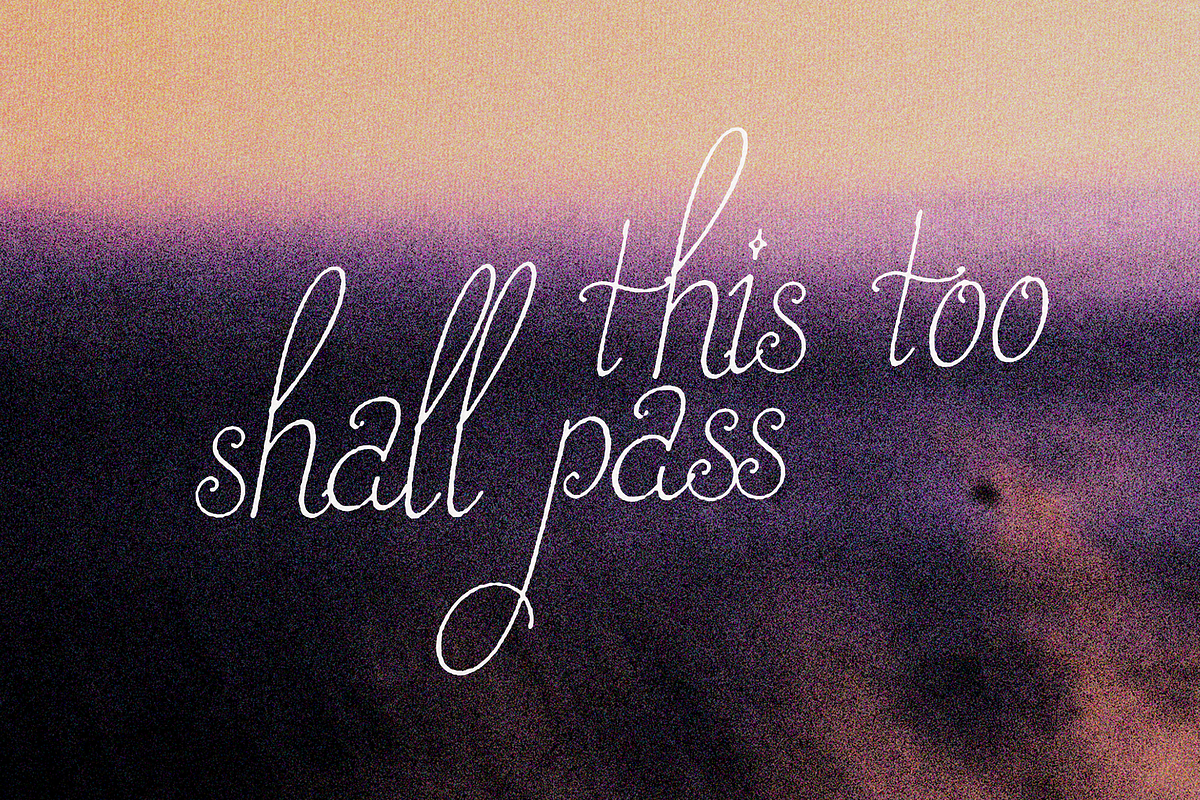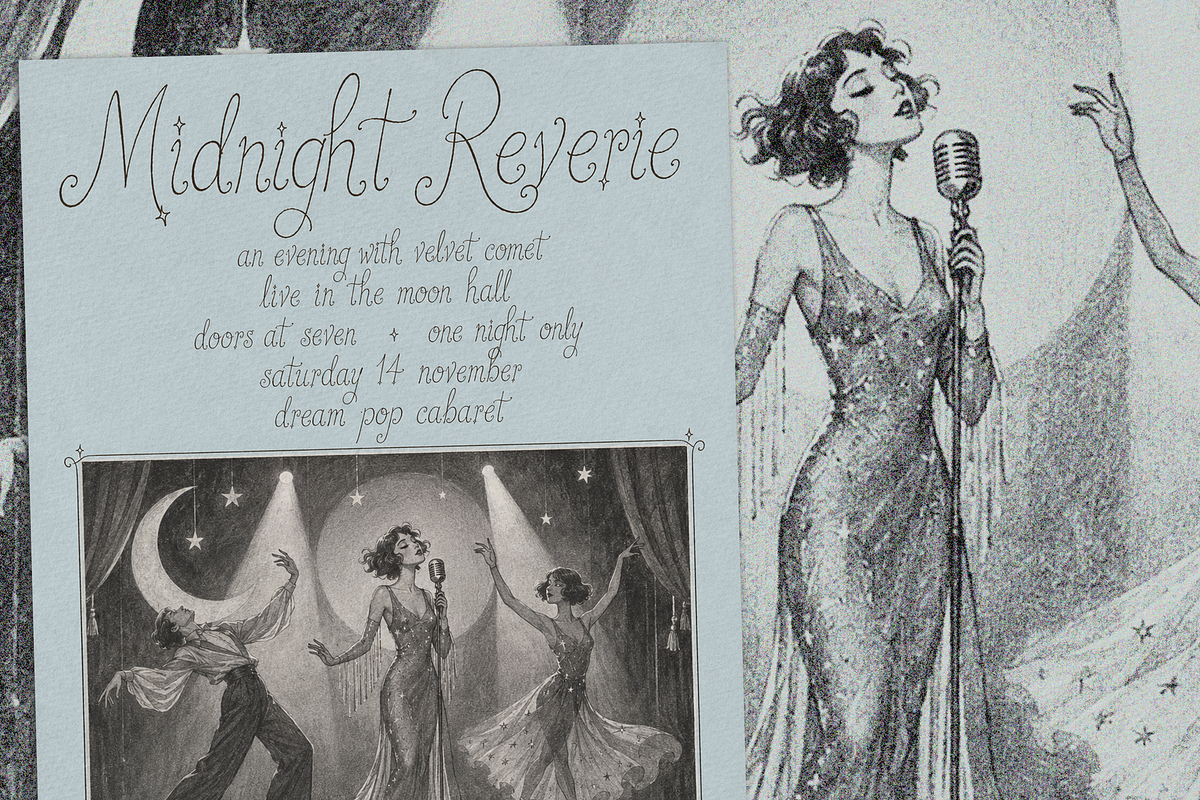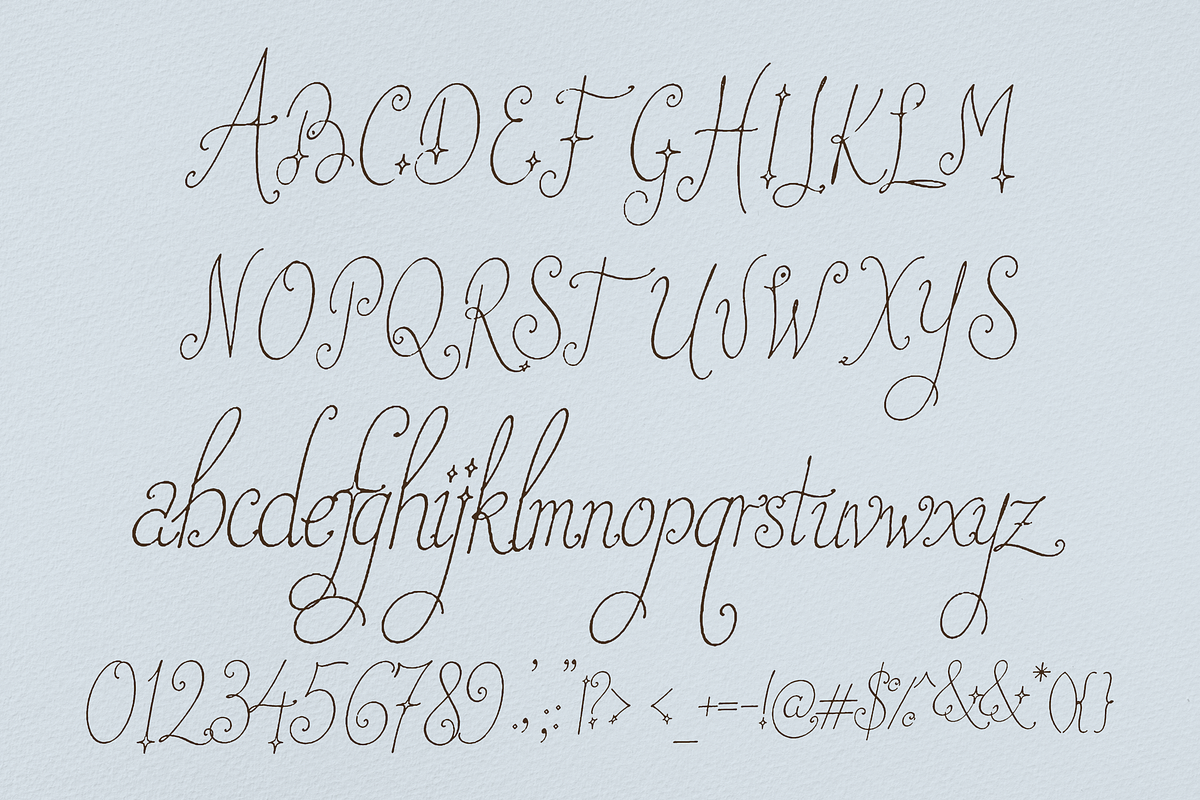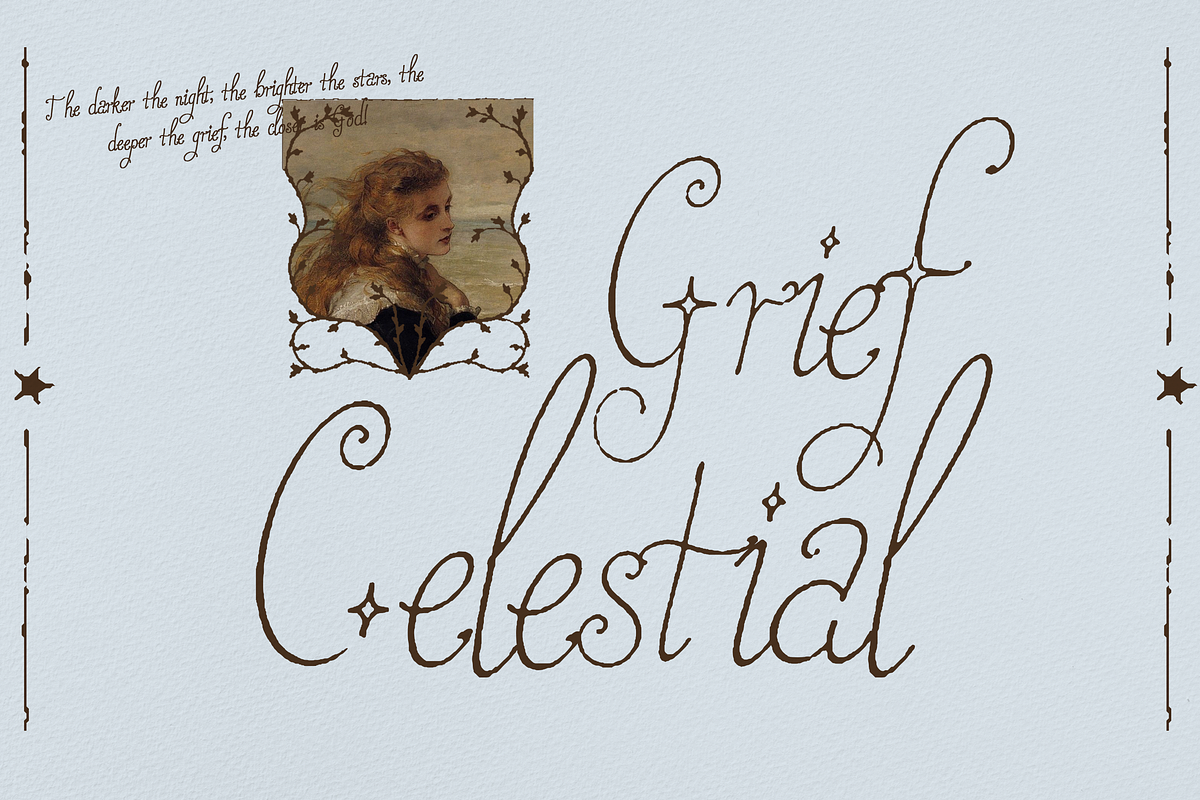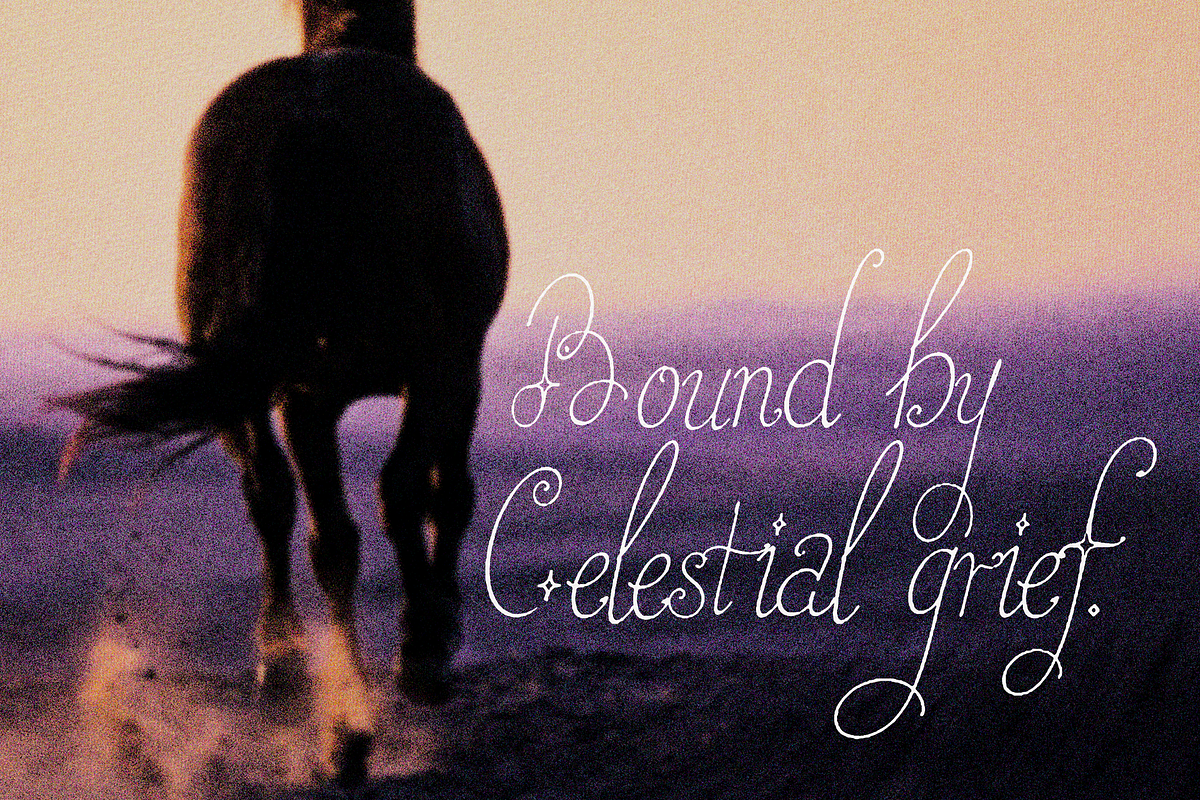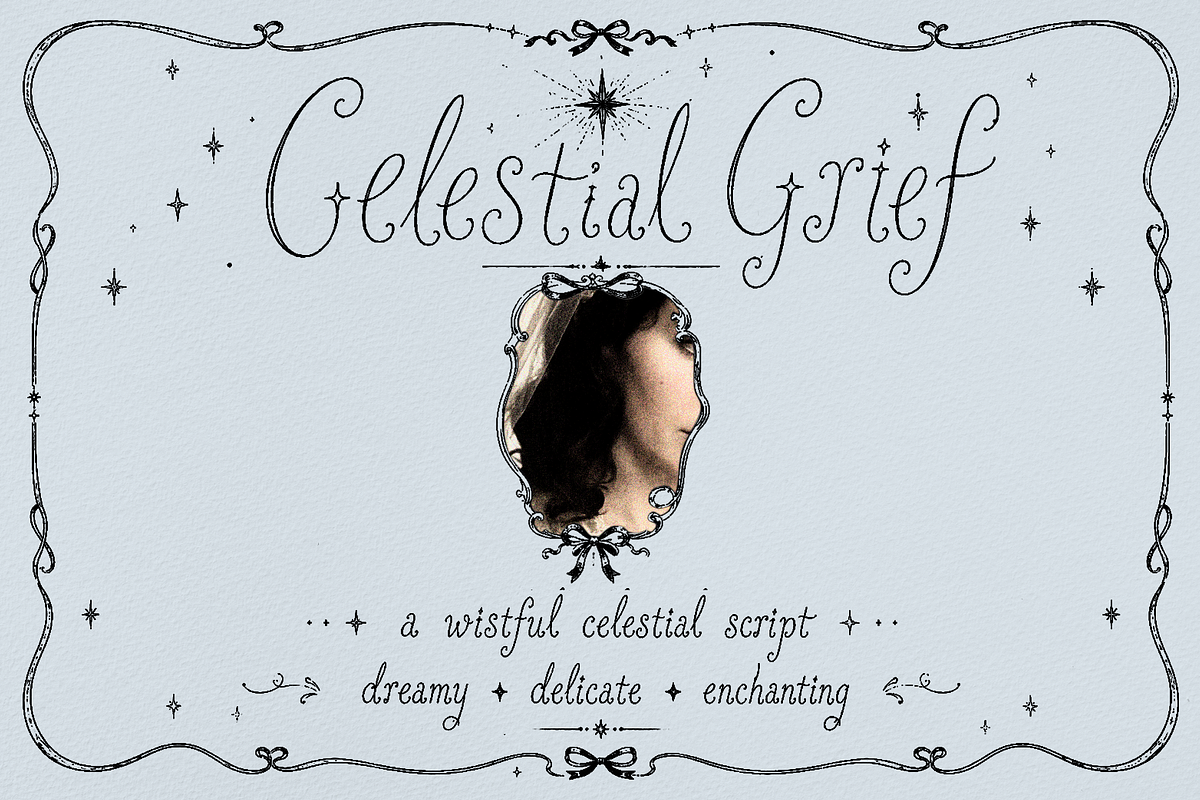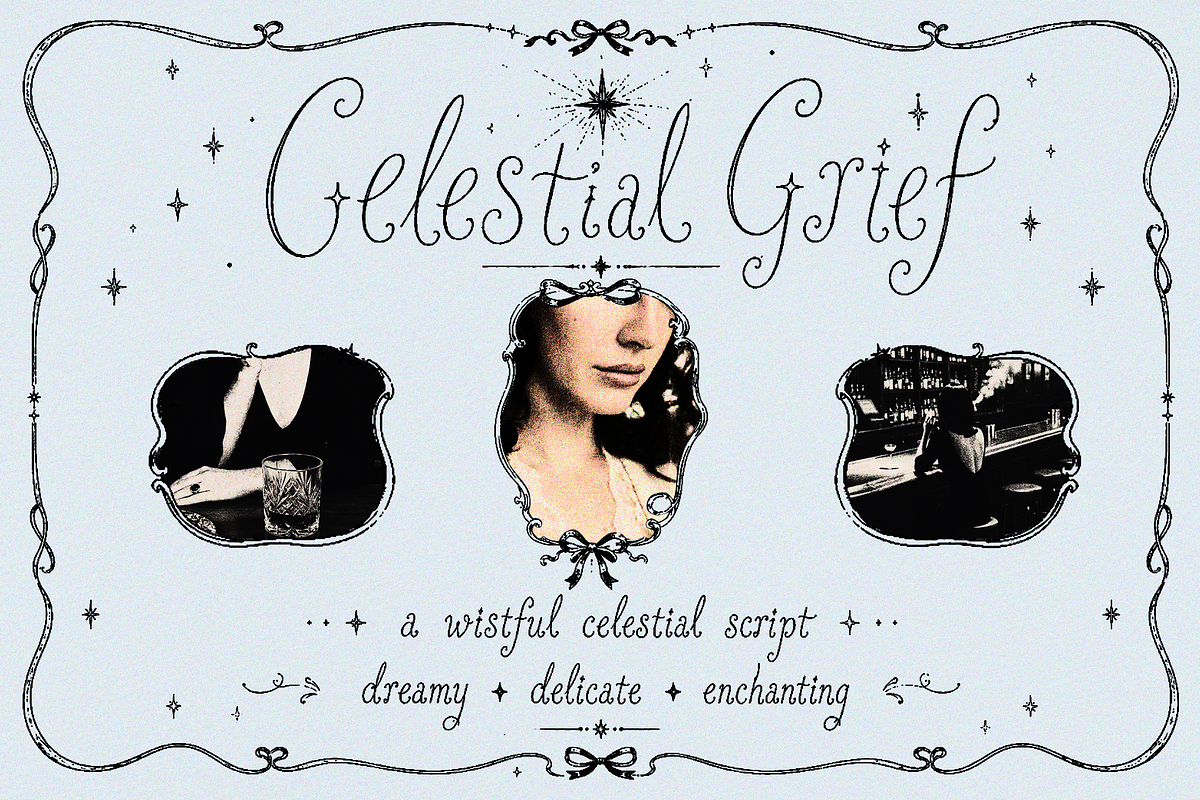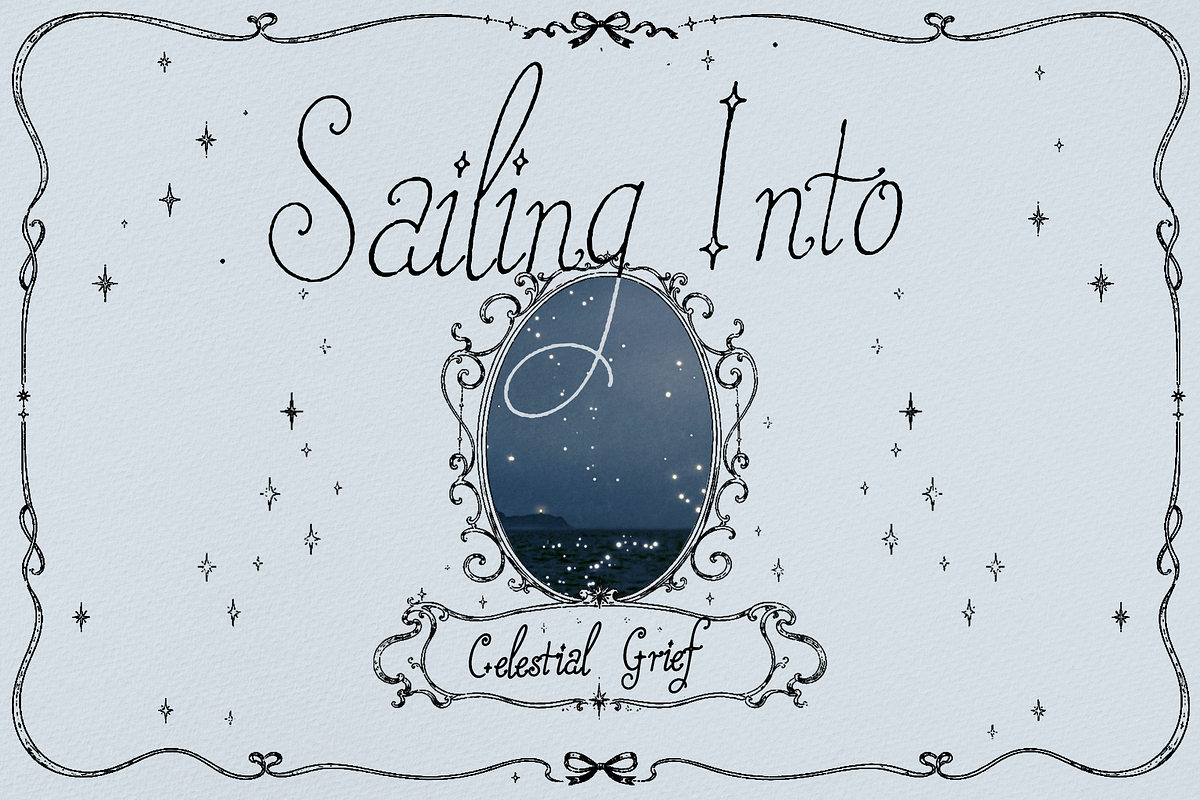
Celestial Grief
Celestial Grief delicate handwritten script font filled with dreamy curves, elegant flourishes, and tiny celestial details. Its tall, slender letterforms create a wistful and enchanting look with a touch of vintage romance.
Perfect for book covers, invitations, poetry, branding, posters, packaging, social media graphics, album artwork, and feminine editorial designs. The font includes uppercase and lowercase letters, numbers, punctuation, and decorative symbols.